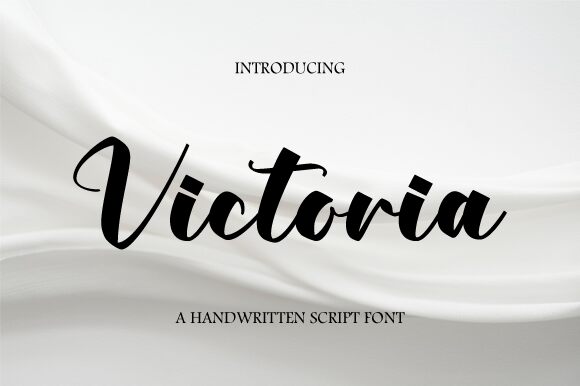
Victoria
Victoria, crafted by Graphix Line Studio, radiates elegance with its handwritten charm. This font captures the fluidity and grace of natural handwriting, making each letter feel personal and inviting. The strokes are bold yet refined, exuding a confident sophistication that’s perfect for making a statement.
Ideal for branding projects, Victoria adds a touch of class to logos, wedding invitations, and social media graphics. Its distinct style ensures that it stands out while conveying a sense of warmth and creativity. Whether used in headings or as decorative text, Victoria’s versatility shines through in both formal and casual designs. Let this font infuse your projects with an air of elegance and individuality.